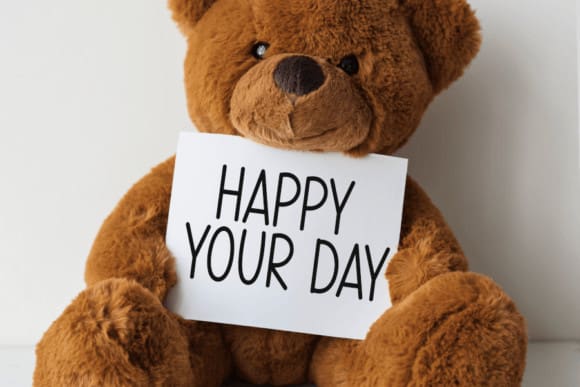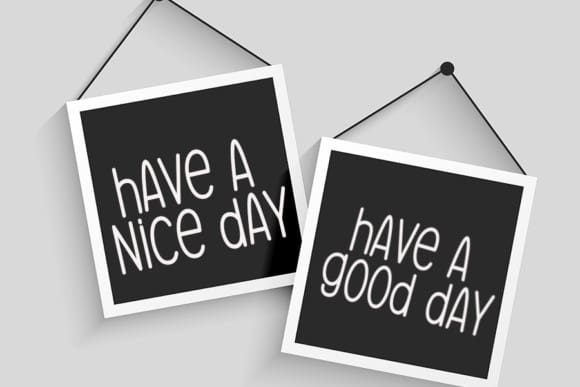
Short Story Font
Short Story Font is a simple, round lettered handwritten font that was carefully crafted to produce the desired results. This font can be used to write titles, invitations, letters, and many other types of products.